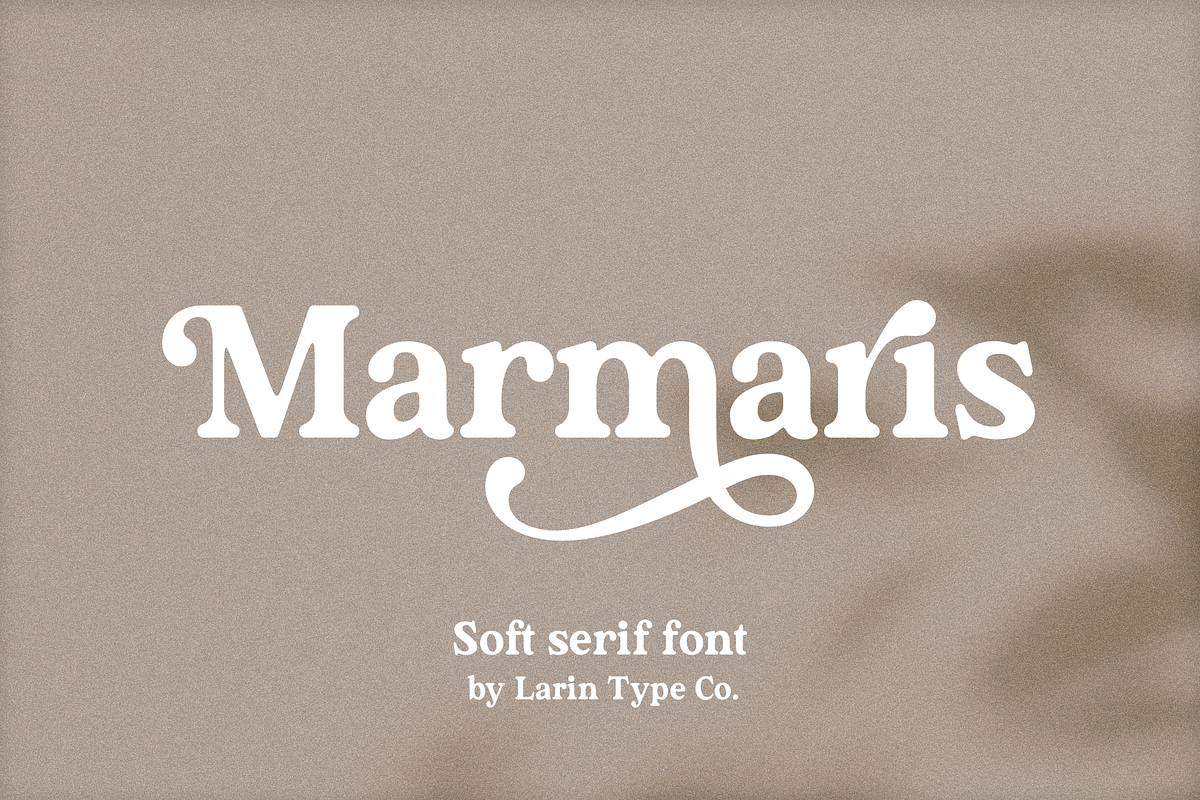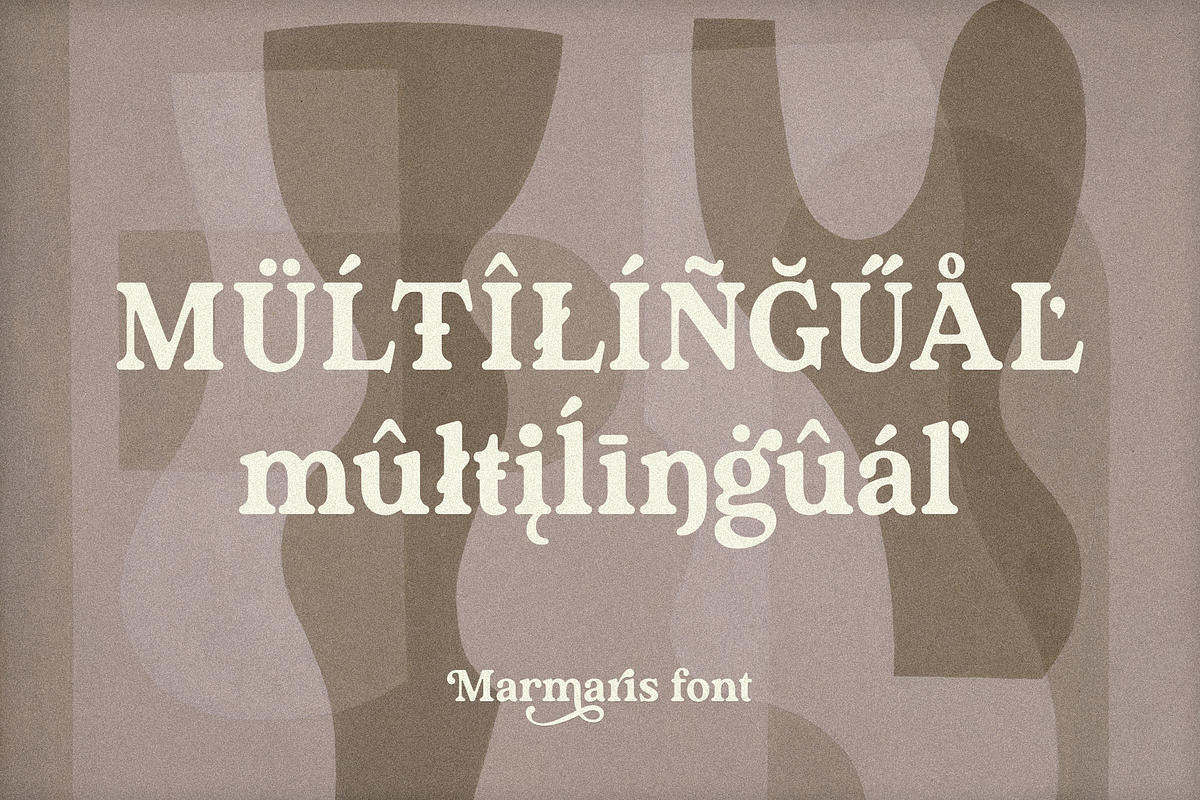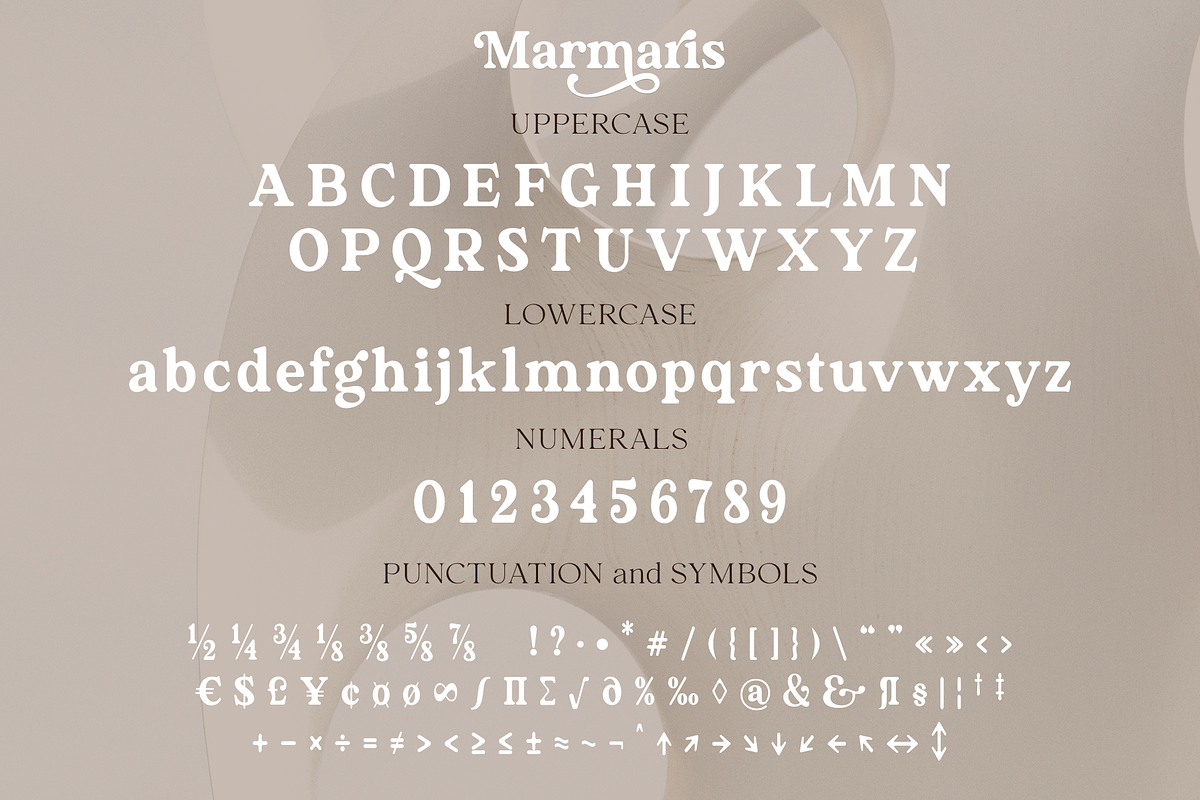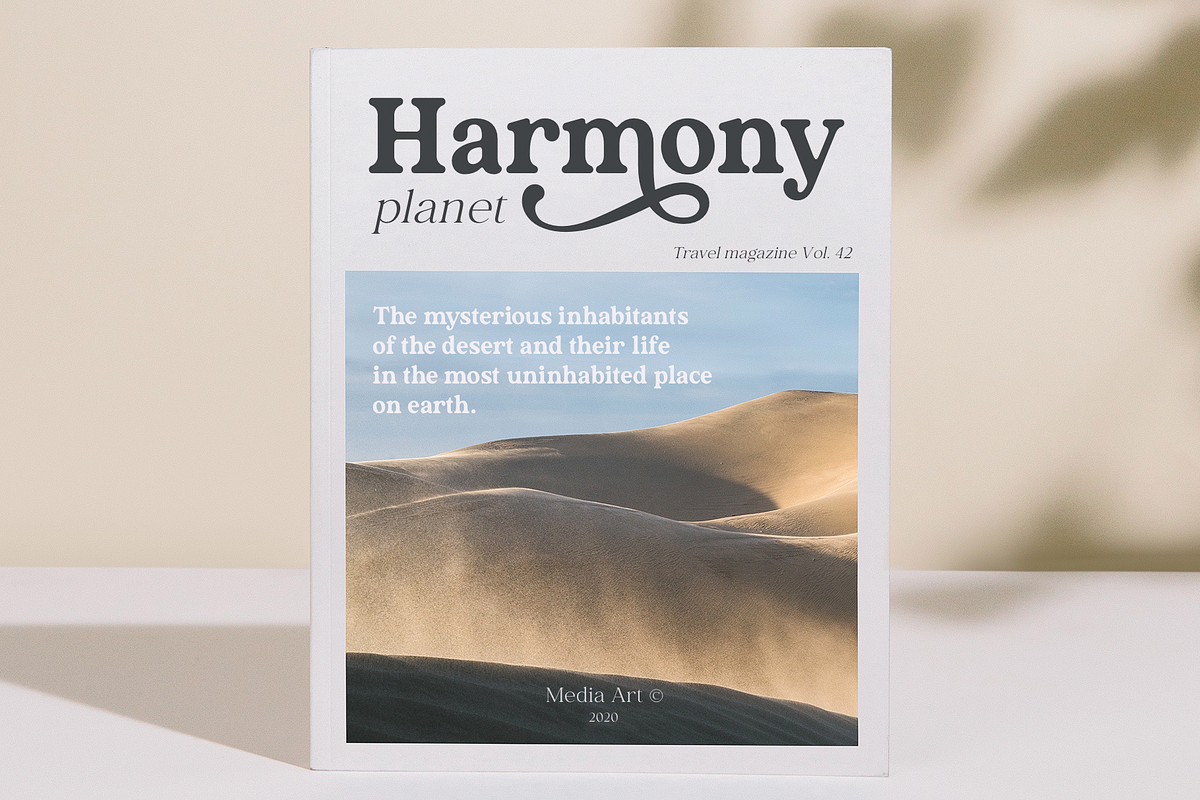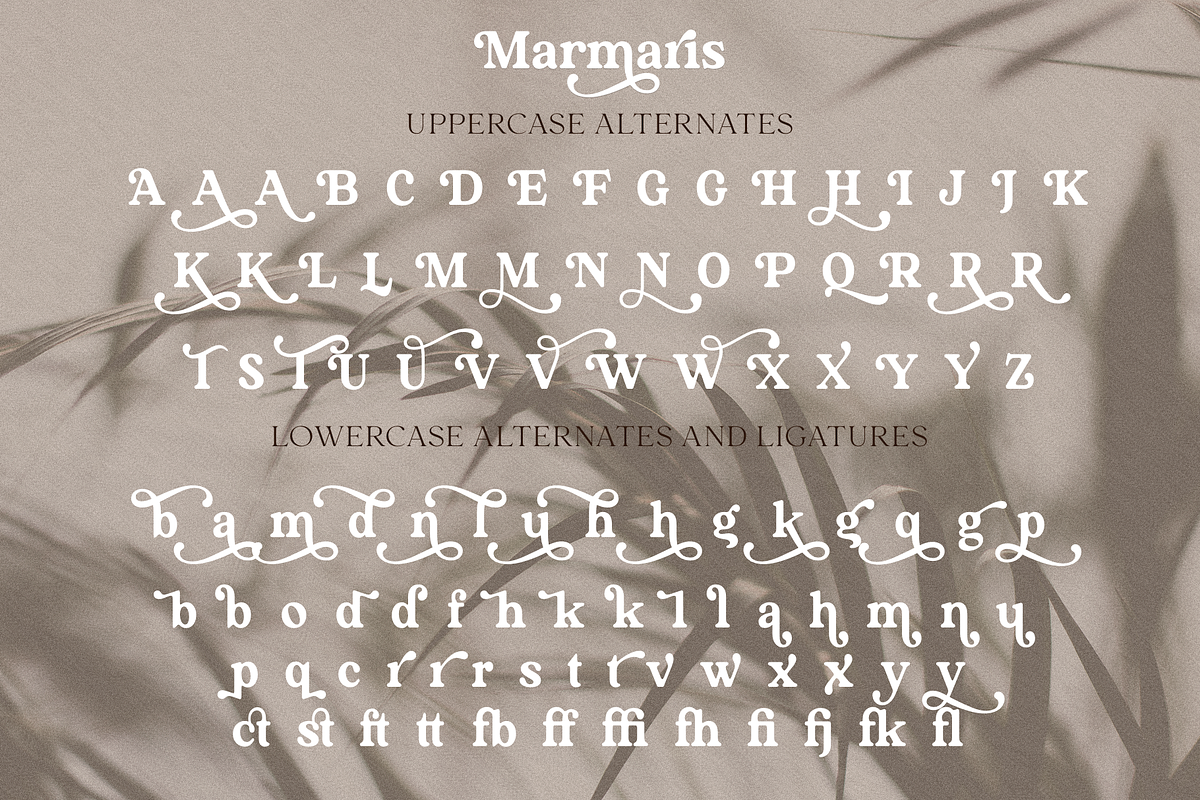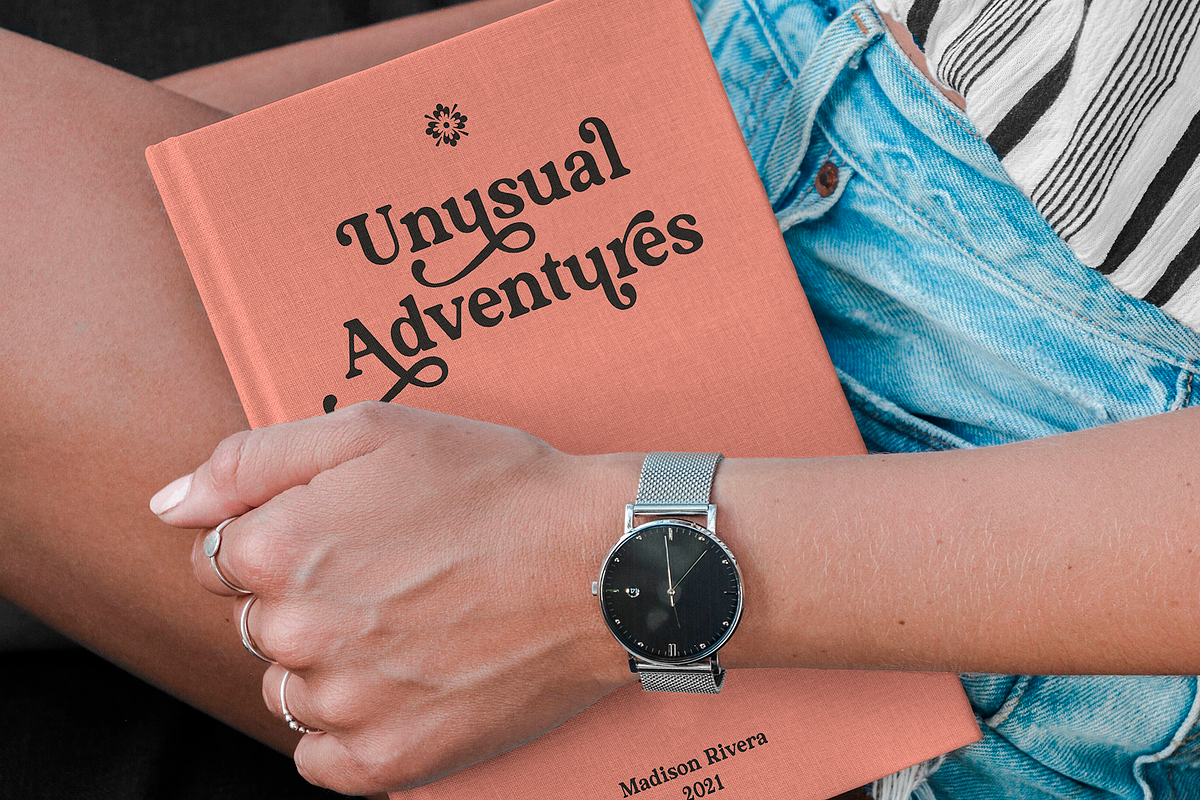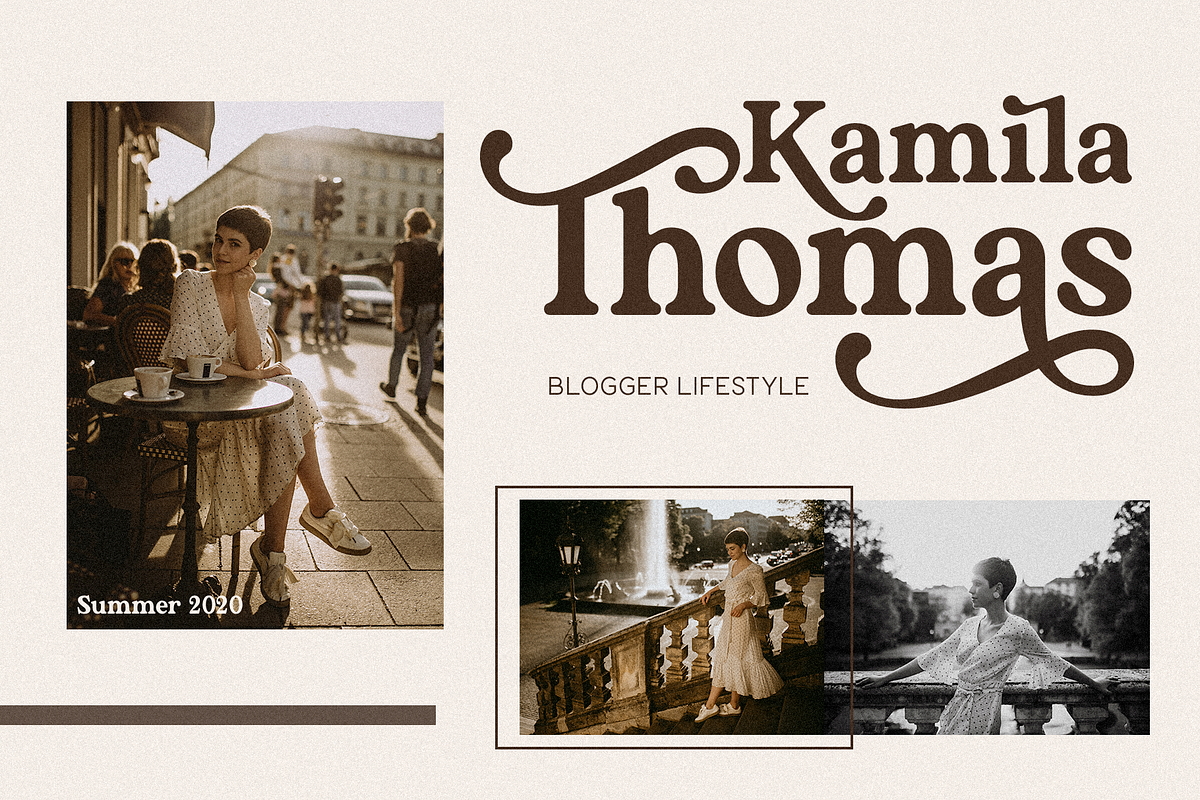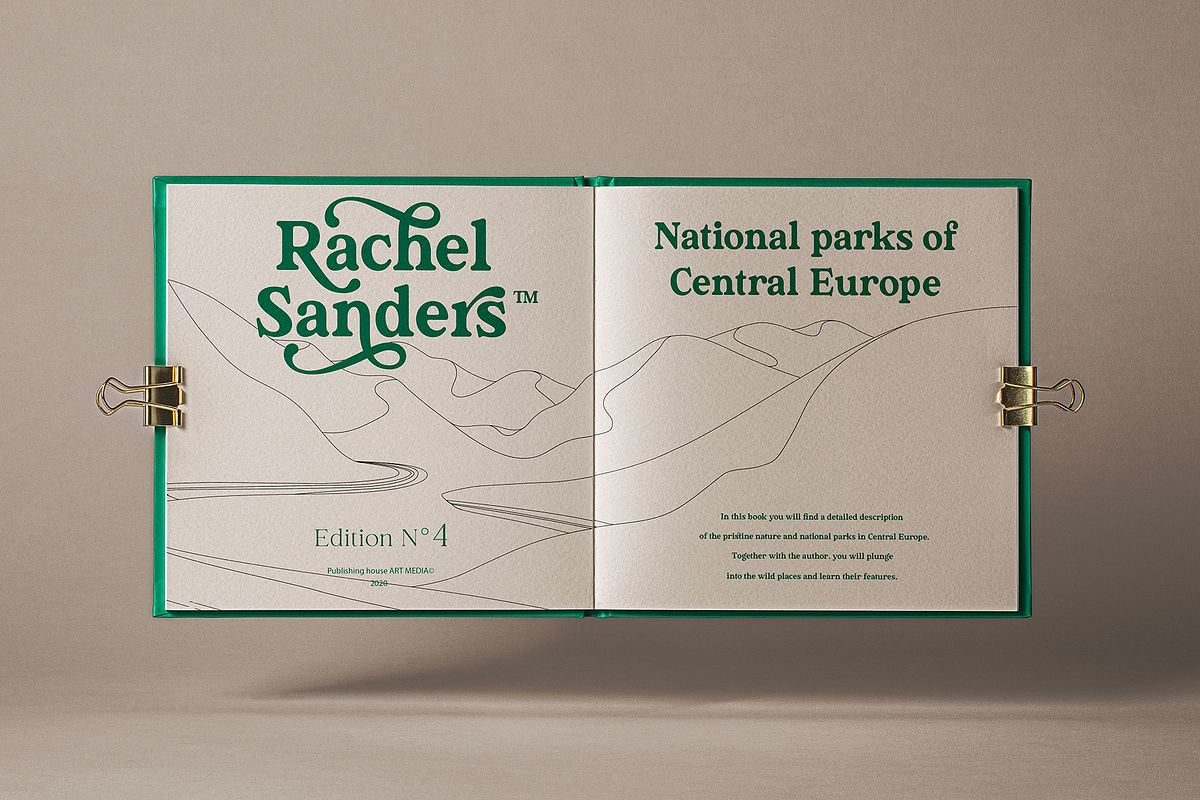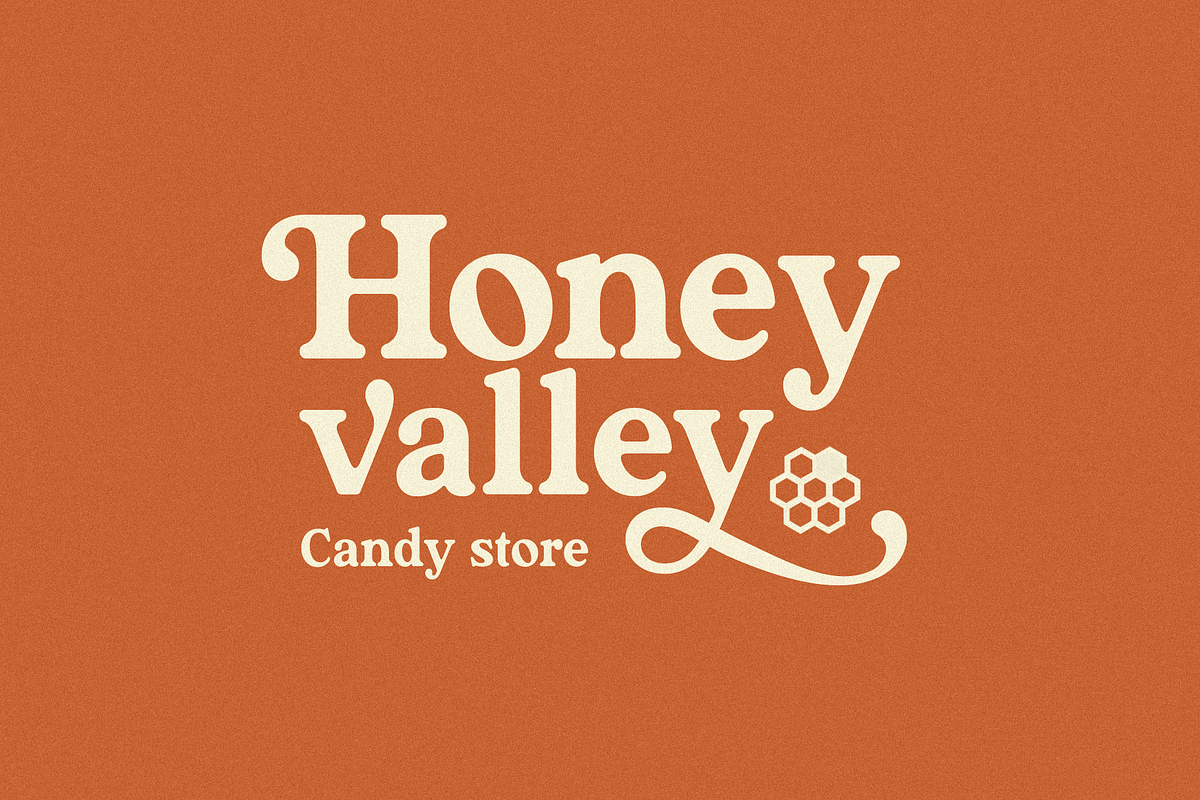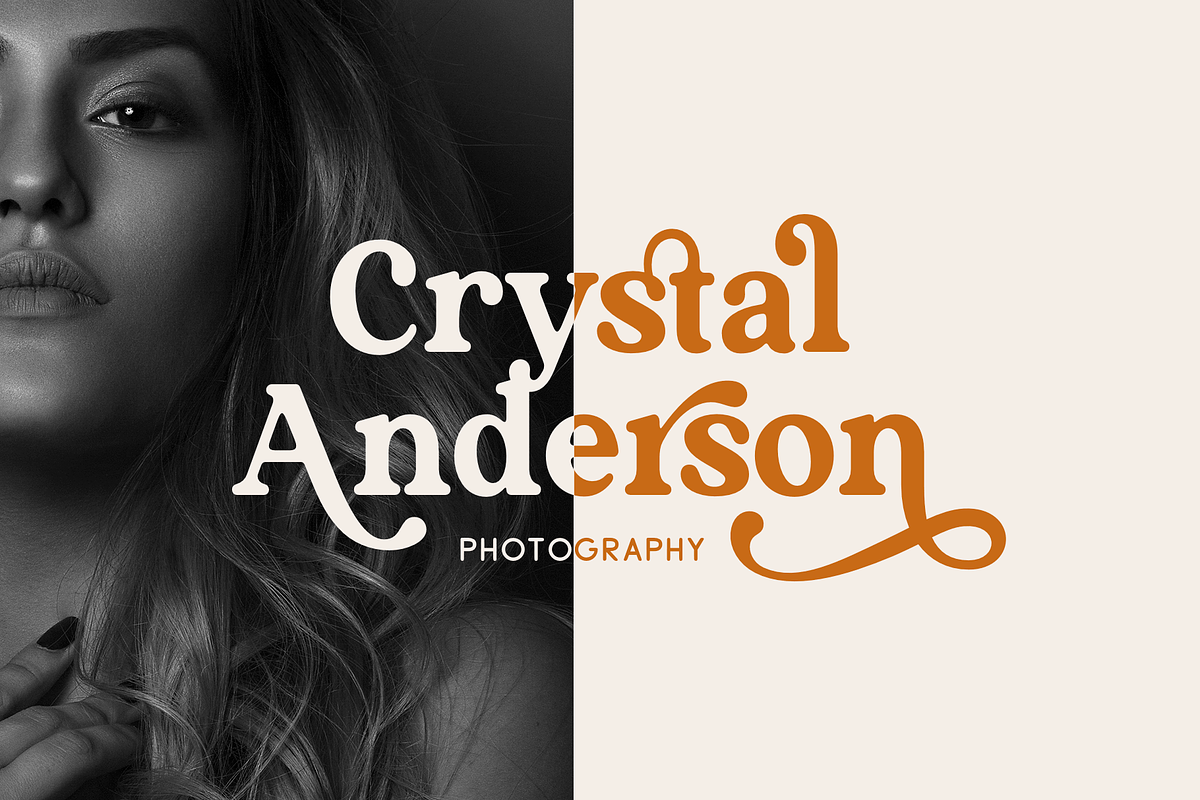
Marmaris
Marmaris this is a soft and elegant serif font.
It carries a bold weight, round shapes it is well readable and works well in headlines and with text. This font is suitable for a wide variety of projects such as: logos, labels, branding projects, magazines, homeware designs, product packaging, mugs, quotes, posters and much more. It can also be more expressive and playful, thanks to the many alternatives and ligatures that are harmoniously combined in this font and make it more attractive and versatile. Try to change the alternatives, ligatures and you will get a lot of options for your project that will make it unique.
This font is easy to use and has OpenType features.
Following international symbols support: ÀÁÂÃÄÅĄÇĆÈÉÊËĘÌÍÎÏÐÑŃŁÒÓÔÕÖØÙÚÛÜŚŠŸÝŹŻŽßàáâãäåçèéêëìíîïðñòóôõöøùúûüýÿąćęłńśšźżž
Full alphabet with Uppercase and Lowercase A-z
Numbers, fractions
Punctuation and symbols
Alternates for Uppercase
Alternates for Lowercase, also ampersand
Ligatures for lowercase